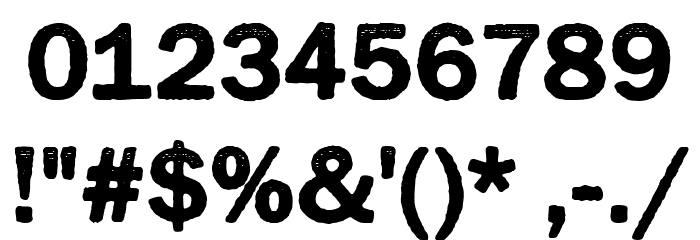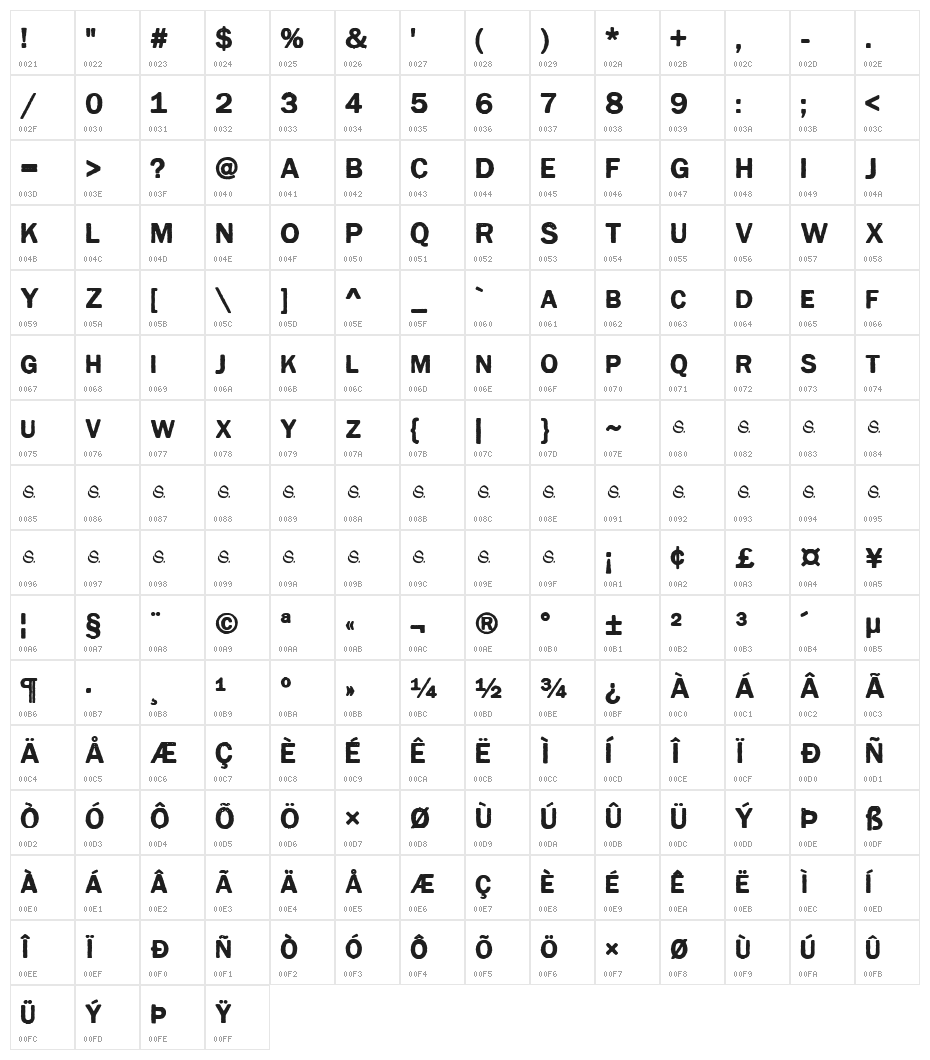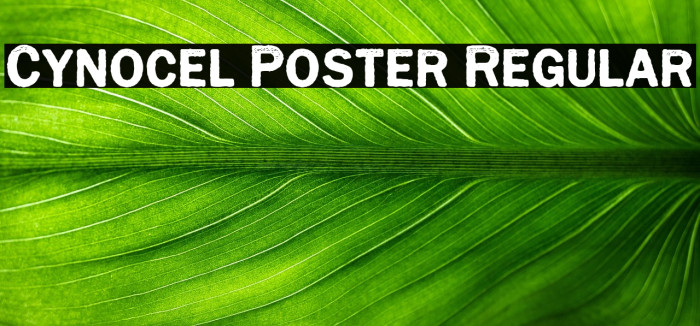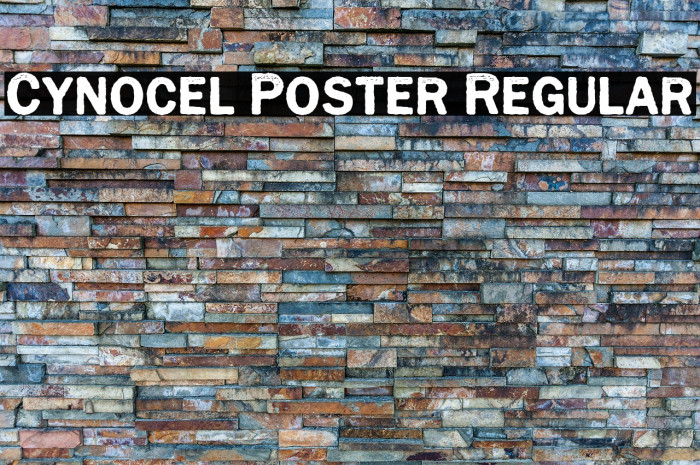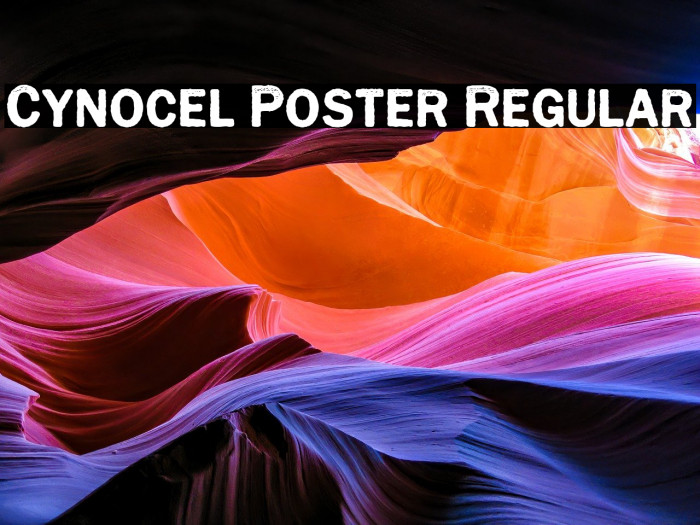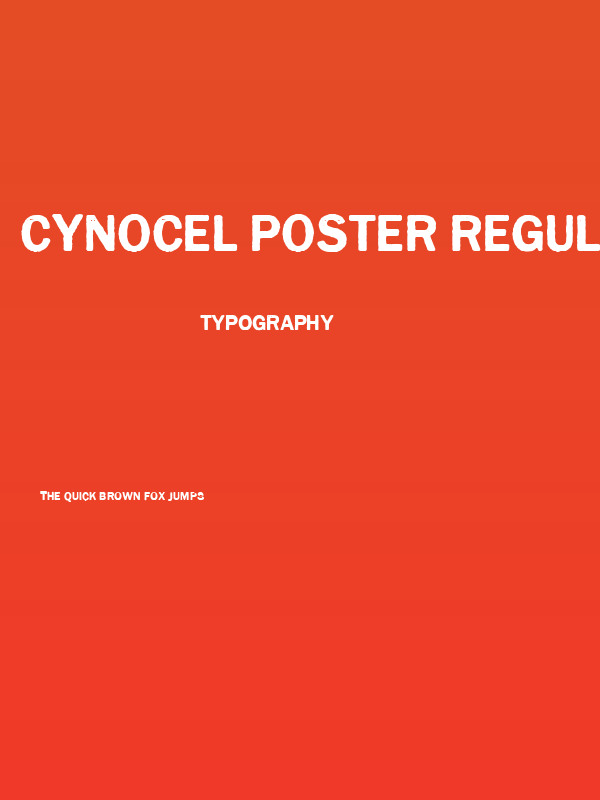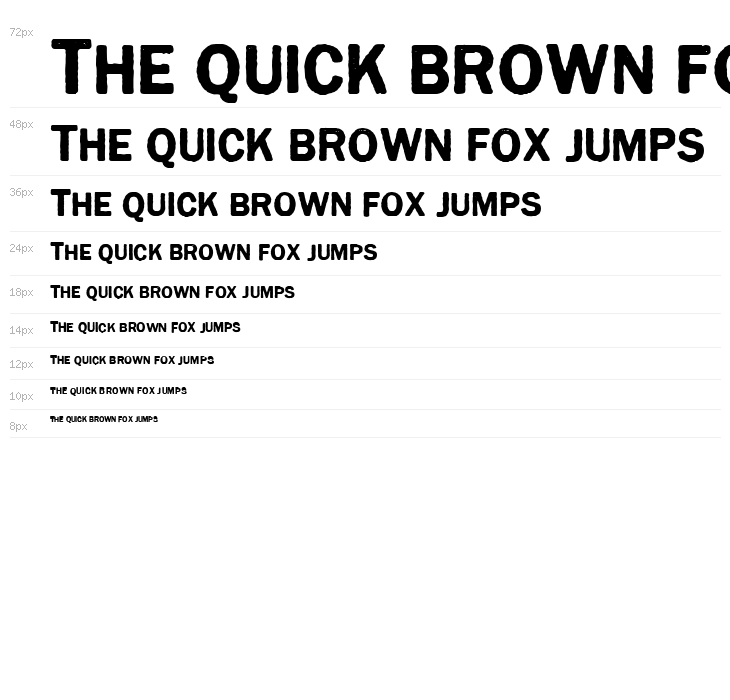
Cynocel Poster Regular Font
Cynocel Poster Regular Description
This font features a bold and impactful style with a distressed, textured appearance that gives it a vintage and rugged feel. The uppercase letters are prominent and sturdy, making them ideal for attention-grabbing headlines. The numbers and special characters maintain the same boldness and texture, ensuring consistency across all elements. The font's design is reminiscent of old printing techniques, adding a touch of nostalgia and character. Its strong presence makes it suitable for projects that require a bold statement or a retro aesthetic.
| Proposed Projects | Ideal for posters, vintage-themed designs, branding, and any project requiring a bold, retro look. |